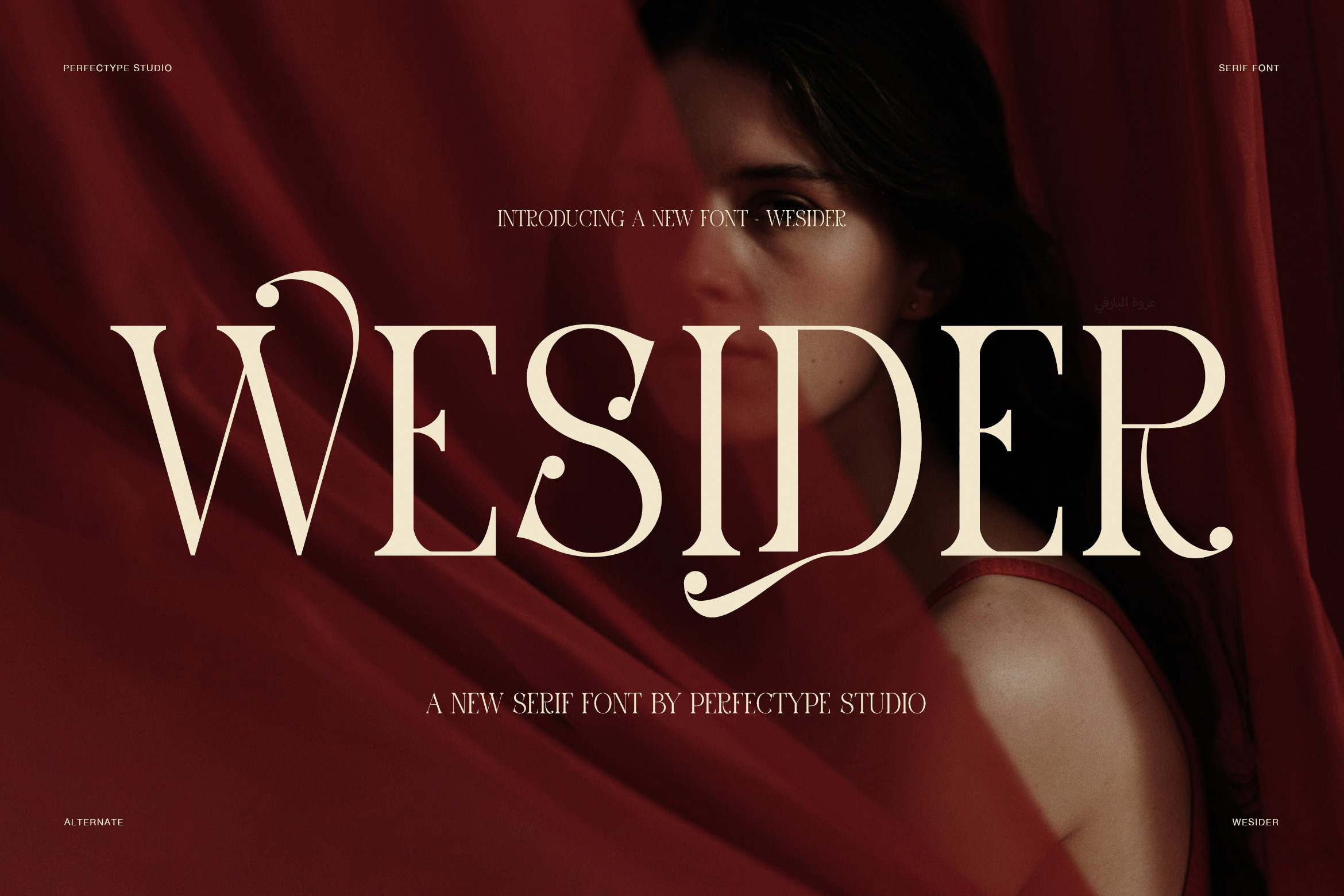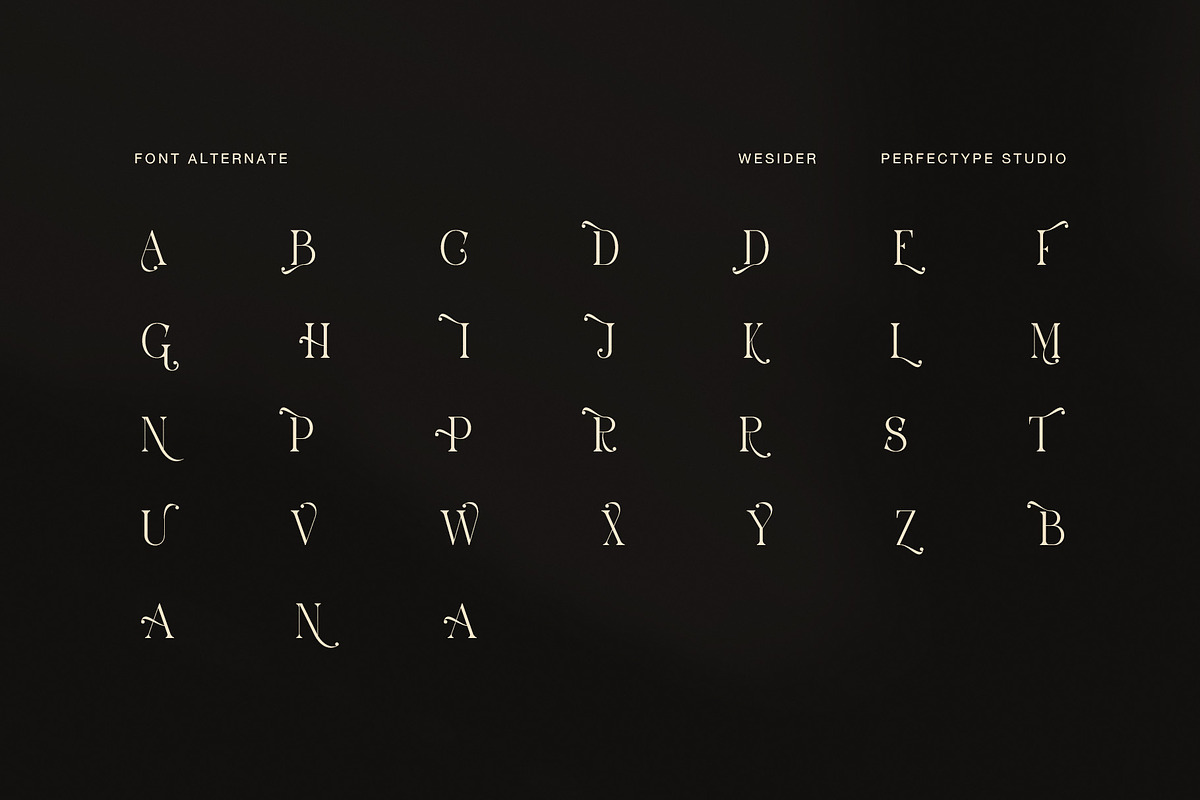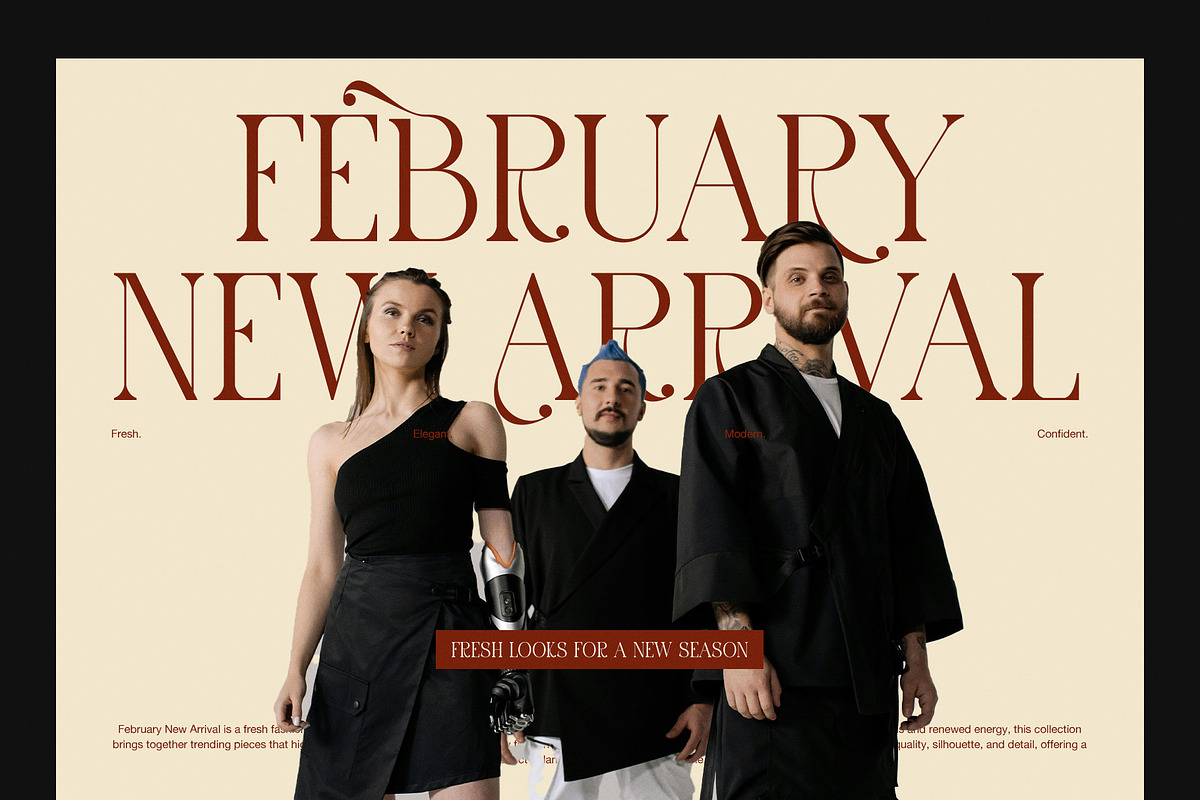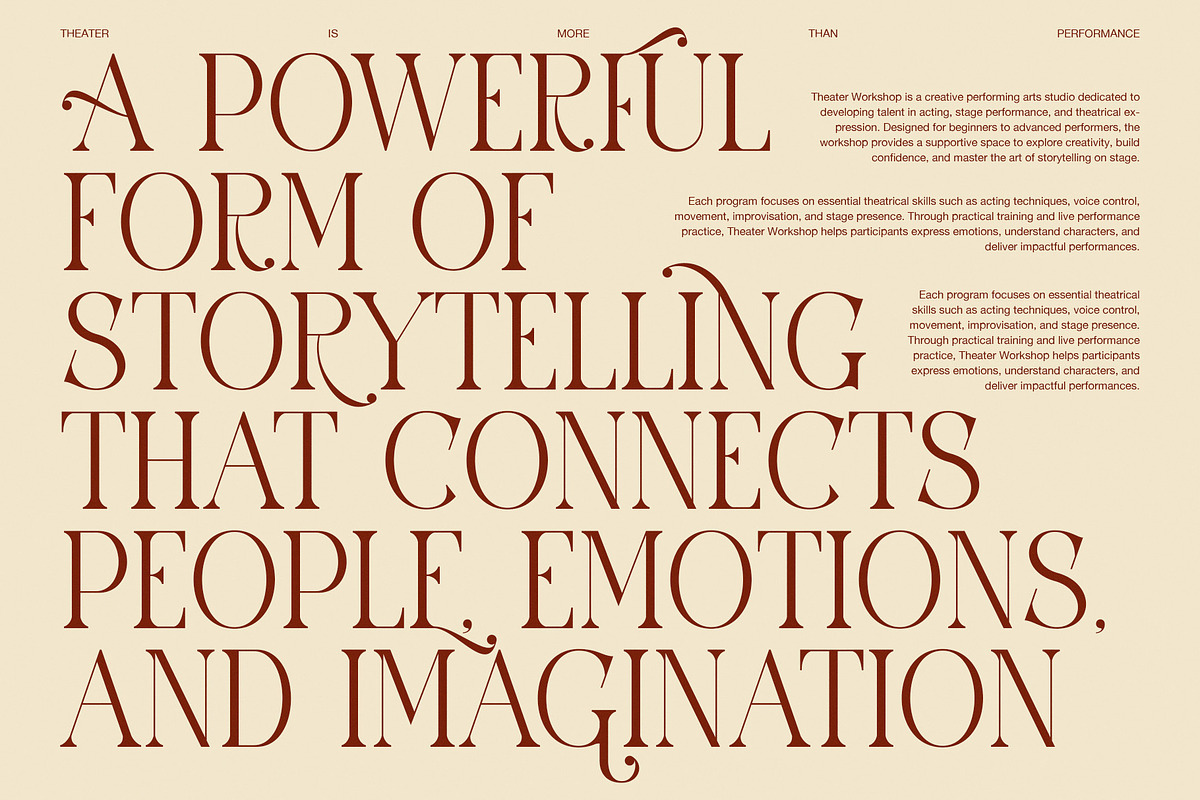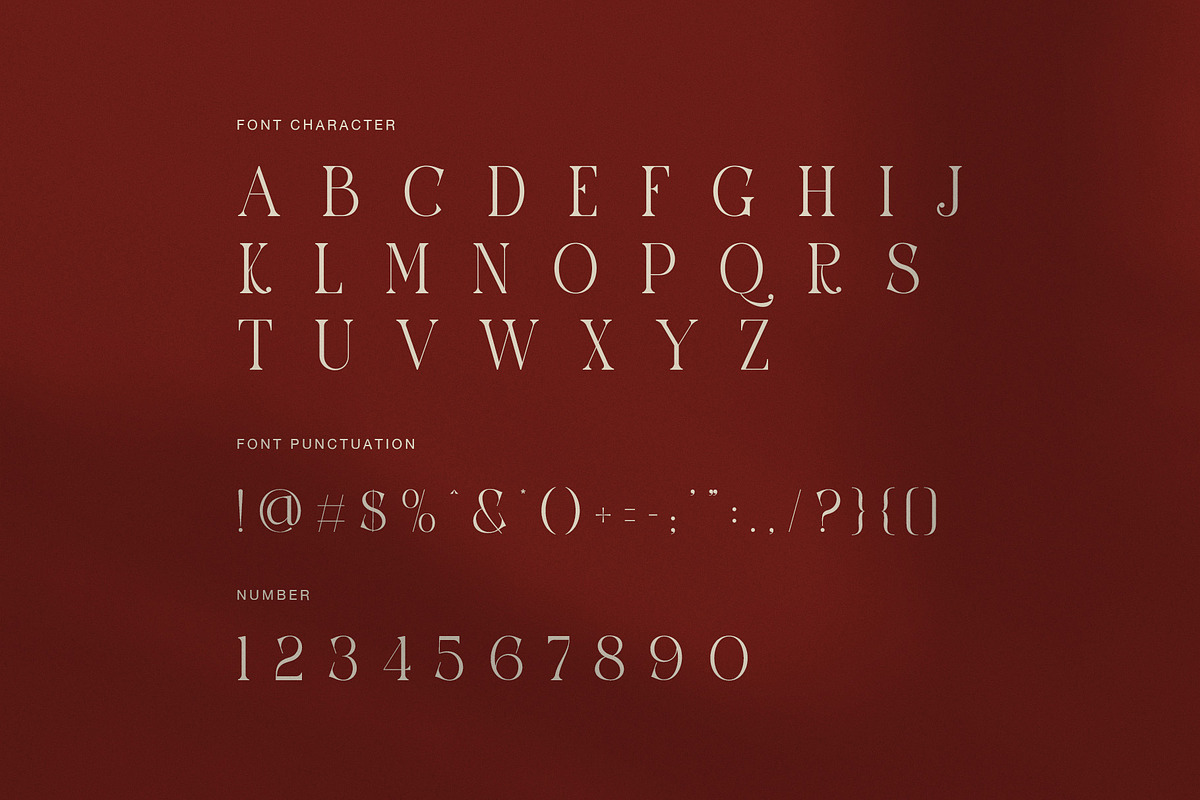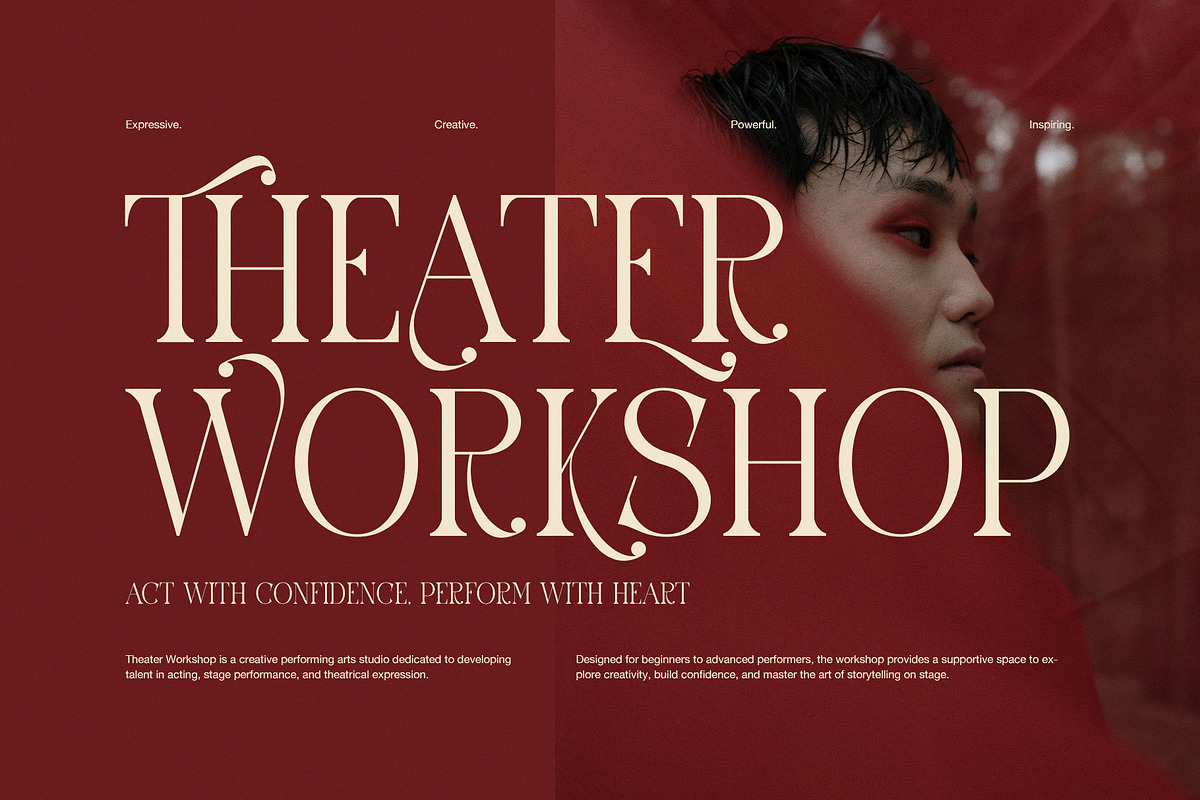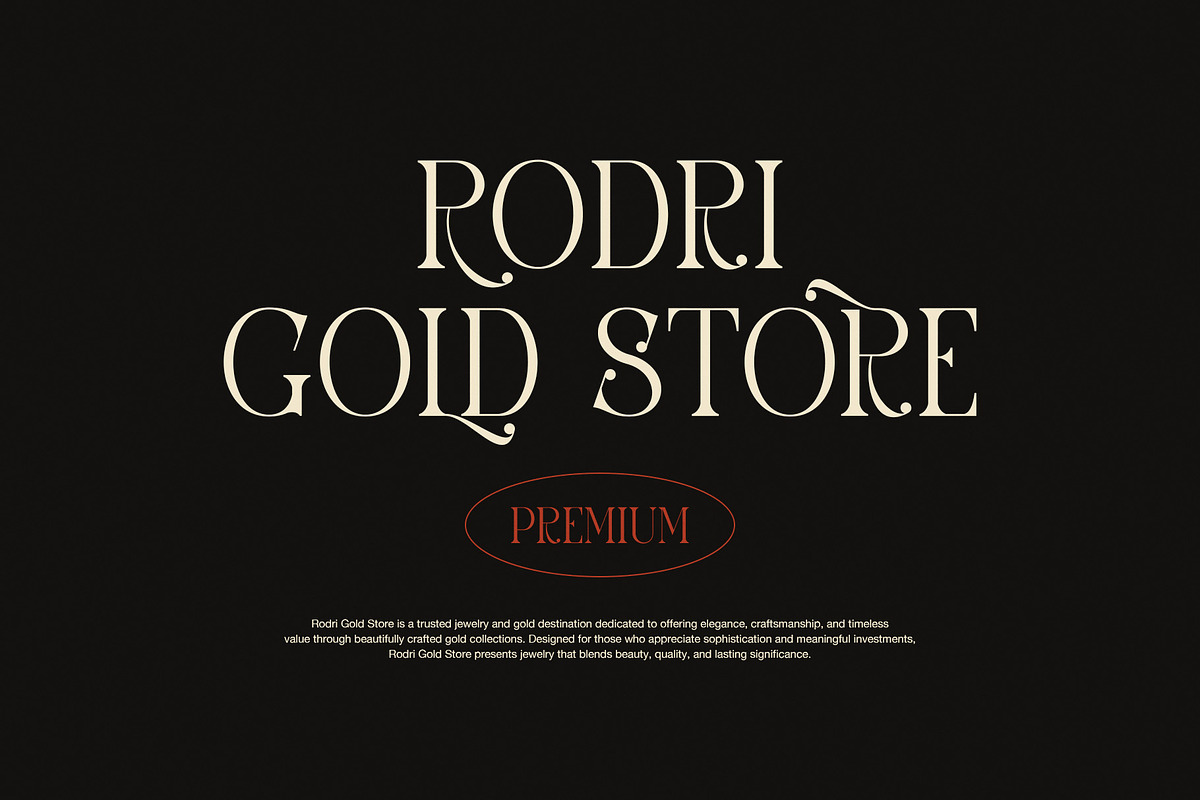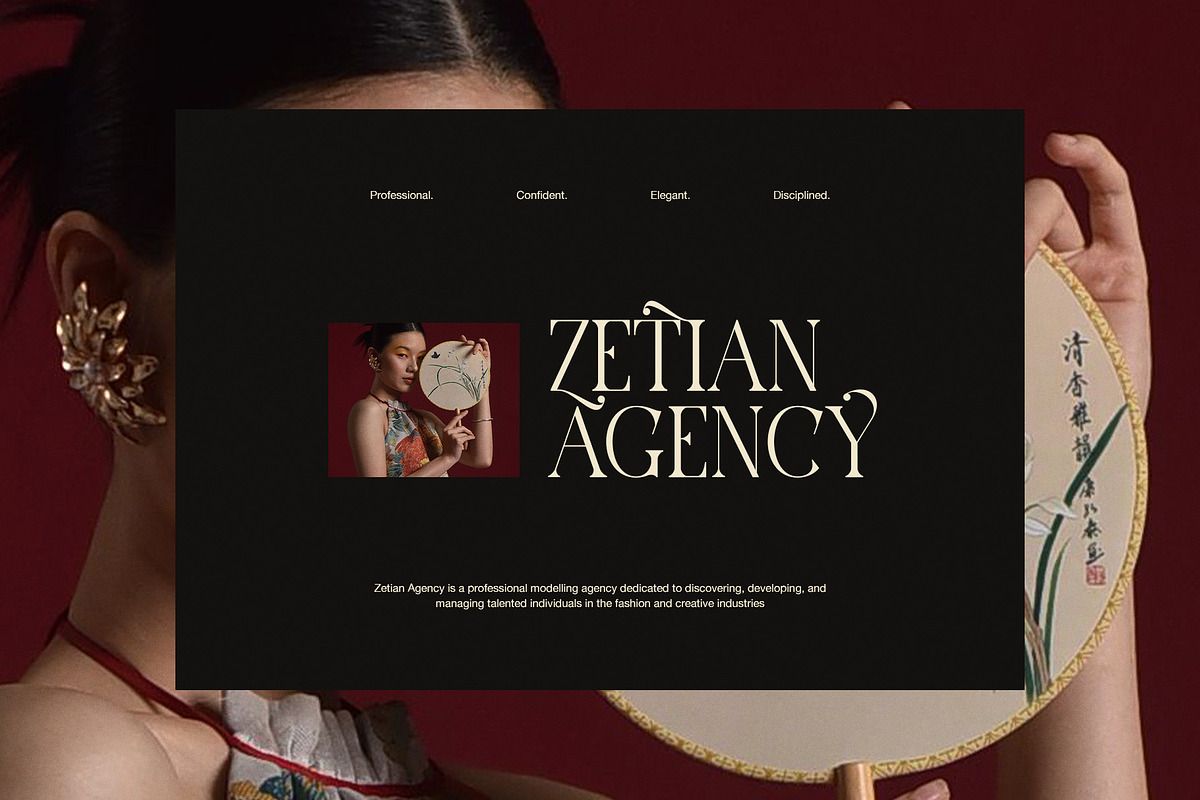
Wesider Elegant Serif Font
Wesider is a bold and elegant serif font designed for modern luxury branding, editorial layouts, and high-end visual identity. It combines refined curves with sharp contrast strokes, so it creates a strong visual voice that feels both artistic and premium. Moreover, the letterforms are carefully shaped, which makes the font suitable for expressive headlines and stylish design compositions.
In addition, Wesider carries a cinematic and fashion-inspired tone. The decorative alternates and smooth ligatures add personality, while still keeping the structure clean and readable. Therefore, it works well for designers who want both beauty and control in typography. Furthermore, the font brings a dramatic presence that stands out in posters, magazines, and branding projects.
Wesider is especially effective in luxury branding, fashion editorials, cosmetics packaging, and creative agency identities. For example, it can be used in magazine covers, logo design, wedding invitations, and social media branding. Meanwhile, its tall serif structure ensures strong hierarchy in layouts, so important messages always stay clear.
Moreover, the font is designed for versatility across digital and print media. It adapts smoothly to both light and dark backgrounds. As a result, designers can use it in many creative directions without losing elegance or impact. In addition, Wesider supports display typography where style and detail matter most.
Key Features and Benefits:
Elegant high-contrast serif design
Stylish alternates and decorative ligatures
Fashion and editorial inspired style
Strong readability in display use
Perfect for luxury branding and identity work
Smooth balance between modern and classic feel
Furthermore, Wesider helps build strong visual storytelling. It adds emotion, depth, and sophistication to any project. However, it still remains clean enough for professional use. Therefore, it becomes a powerful choice for designers who want a signature serif style that feels modern yet timeless.
Overall, Wesider is more than just a serif font. It is a creative tool that enhances branding, improves visual communication, and brings a refined personality to every design project.